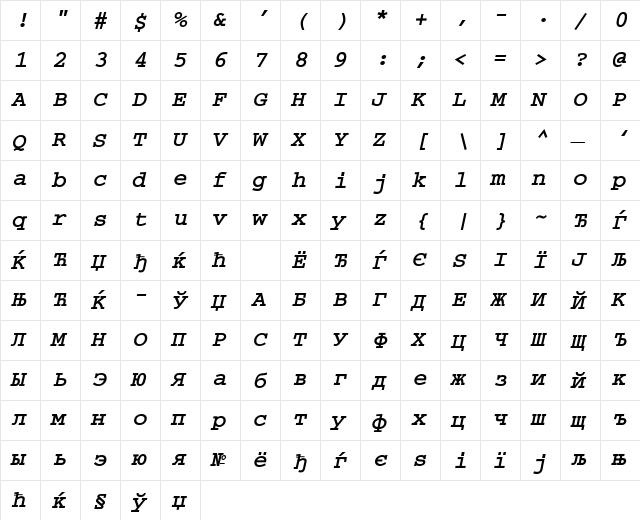
CourierISOCTT BoldItalic Font Preview
Design Context for CourierISOCTT Typeface
CourierISOCTT brings the precise, column-aligned rhythm of monospaced typography to designs that value technical clarity and systematic order. The slanted form adds forward momentum and visual energy. The heavy weight commands attention and anchors typographic hierarchies.
Well-suited to data-driven dashboards, coding tutorials, and any design that wants to reference the world of programming.
Pro Tip: Use CourierISOCTT with slightly increased line-height for extended reading — fixed-width spacing can feel dense in longer passages without extra breathing room.